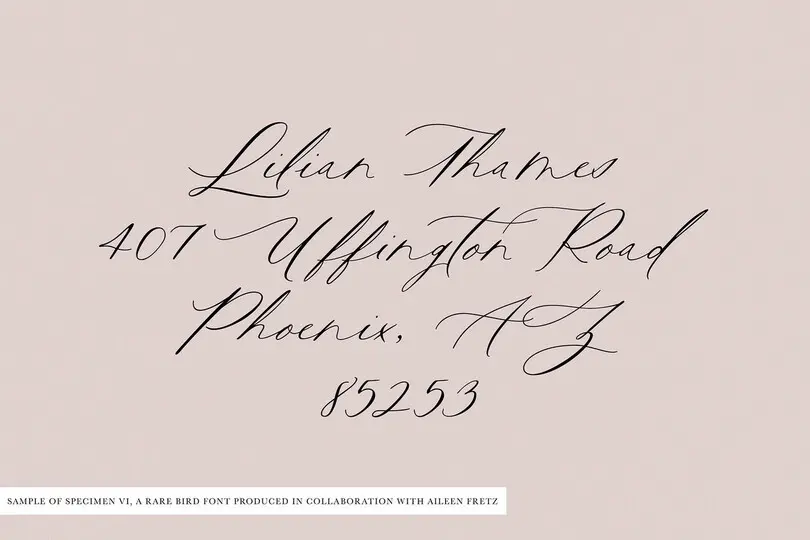
Behind the font: Jessica McCarty of Magpie Paper Works.
「 Anything that's old or handcrafted catches my eye, as do the shapes and movement found in nature. 」
Behind the font: Jessica McCarty of Magpie Paper Works
This installment features Jessica McCarty, an award-winning designer of handwritten and calligraphic fonts. McCarty founded Magpie Paper Works, a boutique typographic foundry specializing in hand-drawn fonts and custom lettering. She also co-founded Rare Bird Foundry in 2017, where she transforms select artists’ calligraphy into premium OpenType fonts.
Where does a new font start for you? Do you sketch concepts by hand? Do you know what you want to do before you start, or do you find the design concepts through sketching or some other exploratory practice?
“For me, a new font always starts as an idea that’s ultimately sketched and drawn by hand.
“The concepts are typically sparked by something visually interesting in my daily “non-type” life. Anything that’s old or handcrafted catches my eye, as do the shapes and movement found in nature. Sometimes I’ll experiment with unusual drawing tools, like feathers or nibs I cut from household objects, just to see what kind of strokes emerge.
Lettering tools
“I love exploring in the analog and tried incorporating digital concepting into my workflow, but found that those tools fit more naturally into the production stage of a project.”
Building on that, are your designs purpose-driven, in that you set out to make fonts that fit a certain use case or audience, or do you follow inspiration and just end up where you end up?
“I love this question—the answer is both! As type designers, our ultimate job is to marry personal inspiration with our customers’ needs. Understanding how fonts can be tailored to a particular use case and intuiting what sort of fonts the market lacks is just as important as designing something beautiful. When the muse leads, I always try to incorporate a design brief into our conversation as soon as possible.”
「 As type designers, our ultimate job is to marry personal inspiration with our customers’ needs." 」
Roughly how long does it take to bring a font from concept to release?
“Hand-lettered serif or sans-serif fonts generally require four months from concept to release. Calligraphy scripts average 6 months to a year, depending on their complexity. I’m usually working on a mix of two to three retail projects and custom typefaces at the same time.”
How do you know when a font is ready to transition from concept to formal design? If you do start on paper, how do you make the transition from paper to screen?
“When I’m starting with my own lettering at Magpie Paper Works, I sketch and then draw each character by hand on onion skin paper. Generally, I try to focus on the design of individual characters while I’m concepting and sketching—marking out those letters that don’t seem consistent, and starring the letters that I feel best represent what I’m trying to convey in the final font.
“When I’m collaborating with another artist at Rare Bird Font Foundry, we work together as a team to determine the “hand”—the look and feel—of the final font. Then the artist lets loose with a series of pangrams, testing that hand across a variety of words and sentence lengths, so that we can map out the construction of the font as well as the types of OpenType features it should contain. From there, the artist provides analog sketches of each character.
Lettering by Aileen Fretz of Plume Calligraphy for Rare Bird Fonts.
“Once all of the characters have been drawn, they are scanned and vectorized directly (if I want the edges of the letters to have a rough texture) or outlined by hand in FontLab or Glyphs (if I’d like for the edges of each letter to consist of smooth Bezier curves). Broad adjustments are made once I can see how the letters are working alongside one another on-screen. Sometimes I’ll discover that a particular letter isn’t working as well as it could be, and in those cases I prefer to re-draw the letter within the font editor.”
Walk us through your testing process a bit. What sort of unique issues (if any) arise when testing a hand lettered font compared to, say, a straightforward sans serif?
“Like most type designers, I want my customers to be able to use my fonts without having to buy the latest computer or design apps, so testing is a huge part of my workflow. After I’ve finished designing and programming, the font is installed on everything from a 2019 gaming PC loaded with the latest Adobe apps to a 2011 Mac Mini running an absolutely ancient version of Apple’s OS.
“I make sure to enable all of the OpenType features I can in as many apps as I can to confirm that everything is looking (and working) the way it should. My primary concerns are making sure the letters connect seamlessly with one another, all of the alternates and features are functioning as designed, and that all of the characters in the font are visible in Adobe’s glyphs panels.
“Older software, especially older word processors, have little OpenType support so it’s especially important to make sure that the font looks good even when none of those extra characters are available.
“Highly-textured and rough-edged fonts typically have many more points along their curve outlines than a straightforward sans serif, and these extra points can overwhelm some apps. I pay special attention to how the letters are rendered on-screen and, in some cases, will simplify outlines or streamline the code to improve the user experience.”
You’ve noted elsewhere that script fonts are “exponentially more labor-intensive” than non-connected fonts. Can you talk about how this factors into the various stages of a design? Are you problem-solving from the beginning, in terms of figuring out how certain letter combinations will work?
“Well-crafted script fonts are tricky things; they look deceptively simple from the outside. Inside, however, these fonts function like Rubik’s™ cubes!
“Every letter must be designed to seamlessly connect with every other letter. In a hand-drawn script, the baseline—the invisible horizontal line upon which all of the characters in a font rest—may “bounce” for visual effect, shifting the letters slightly up and down across a line of text. This can complicate how each letter connects with its neighbors.
Sample of Specimen VI, a Rare Bird font produced in collaboration with Aileen Fretz.
“Additionally, if the font is meant to replicate analog calligraphy, multiple alternate versions of each letter are often required. These alternates are used in double-letter sequences so that the “o’s” in “noodle,” or the “t’s” in “little,” look natural. There are also tricky sequences of letters, like “os,” “ex,” and “az,” which can require more special alternates. If the font includes swashes, as most scripts do, all of the alternates will require their own duplicate swashed version.
“Complicating all of this are other common OpenType features like titling alternates and contextual alternates—alternate versions of letters based on their positions within a word—like a “t” with a longer or shorter cross-stroke. I’m a “more is more” kind of person so the hardest part of the design process for me is knowing when to stop adding extras. Does that font really need 20 stylistic sets, ligatures, contextual alternates, stylistic alternates, titling alternates, swashes, old-style numerals and chaining contextual substitution? You bet it does! It’s very easy for a type designer to suddenly find themselves sitting in front of 1,000+ characters.
“Then all of those alternates must be programmed into the font’s OpenType code. It sounds simple, but every substitution affects the next—just like each twist of a Rubik’s™ cube. Sure, a type designer can anticipate users turning a single feature on or off. But what happens when their customer wants to use swashes and contextual alternates and double-letter ligatures, all at the same time? Ideally, they should be able to layer these features and automatically see all of the characters they adore, at once, in their layout. This requires a lot of problem solving and testing from the type designer. It’s not unusual for a designer to invest hundreds, or even thousands of hours into a robust script font.
「 It’s not unusual for a designer to invest hundreds, or even thousands of hours into a robust script font." 」
“Leaving all of this OpenType magic out of a script makes it much cheaper and faster to produce, but it can also make the end result clunky to use, with letters that don’t seamlessly connect and an overly digital aesthetic.
“When it comes to scripts, the old cliché is usually true: you get what you pay for!”